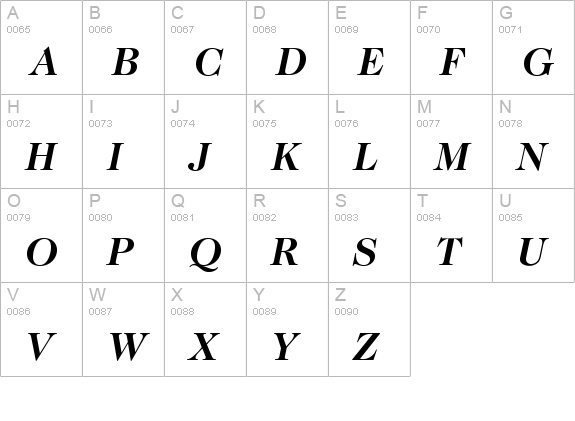
CaslonNo224EF-BoldItalic Font Details
CaslonNo224EF-BoldItalic is a striking and elegant font designed to make a bold statement. Its strong and italicized characters exude confidence and sophistication, making it perfect for headings, titles, and other prominent text in your designs. The sharp serifs and clean lines of this font lend a sense of classic charm and timeless appeal. This font is not only visually captivating but also highly versatile, suitable for a wide range of design projects from posters and advertisements to branding and packaging. Its bold weight commands attention while the italicized style adds a touch of flair and personality. Whether you're looking to add a touch of elegance to your print or digital designs, CaslonNo224EF-BoldItalic is sure to impress. And the best part? It is available for free download at FontsMarket.com, making it easily accessible for all your design needs. Elevate your projects with this stunning font and let your creativity shine with CaslonNo224EF-BoldItalic.